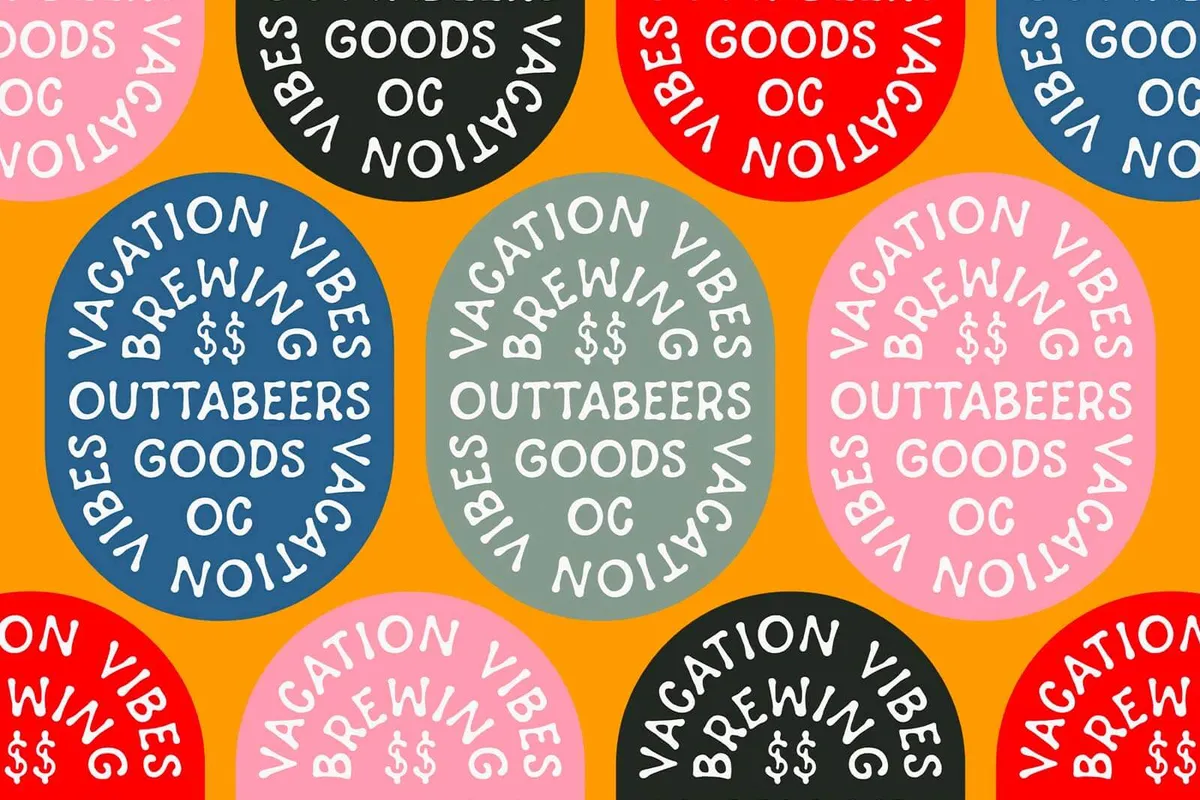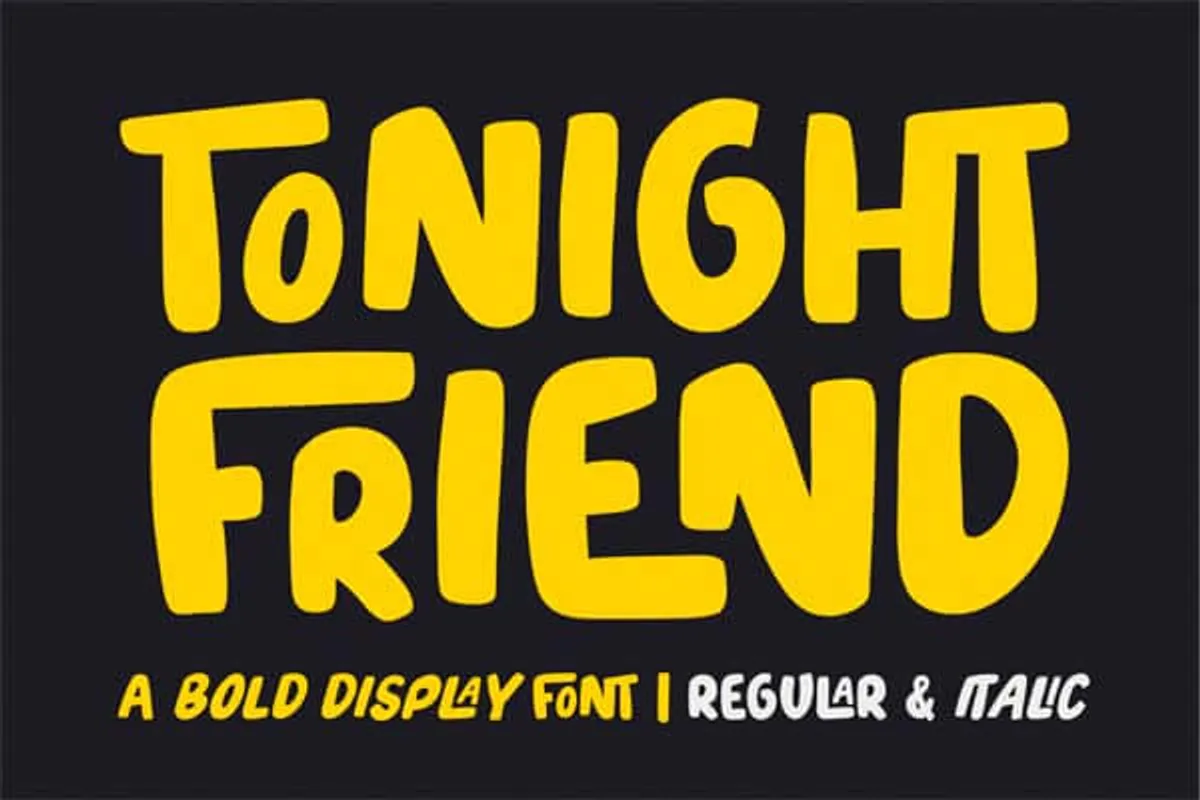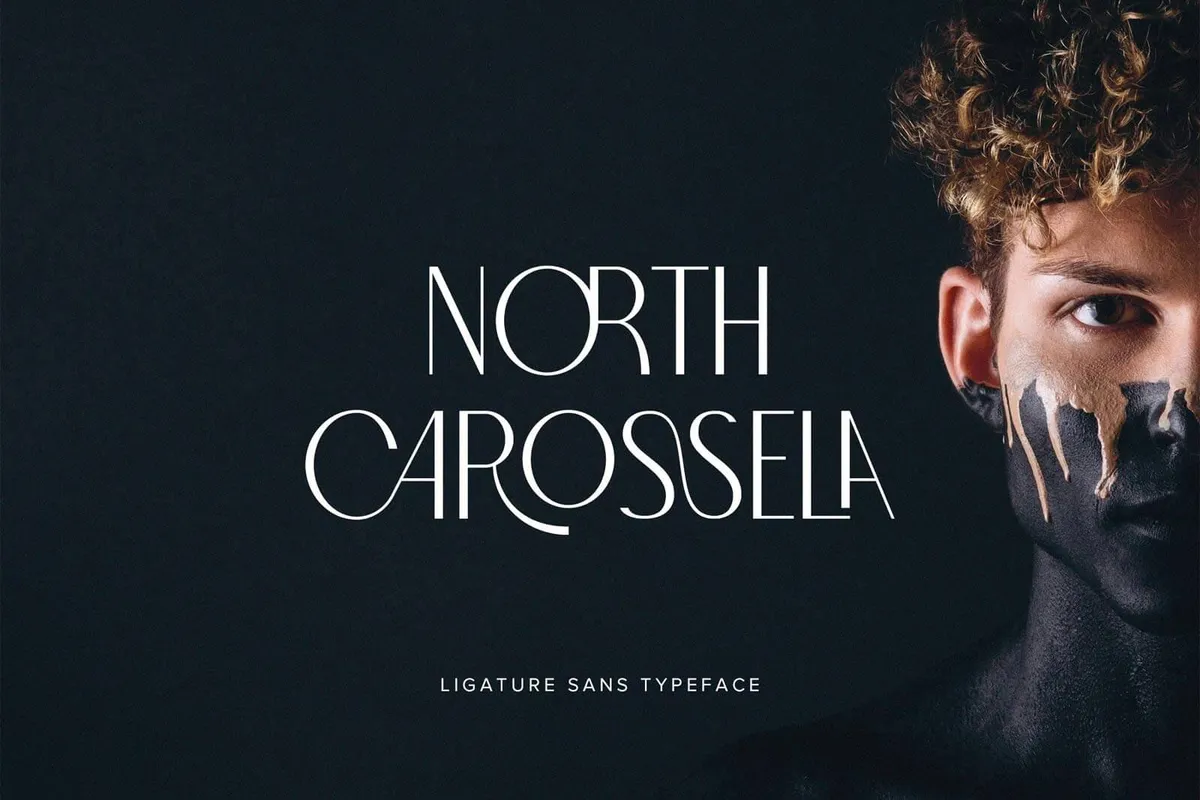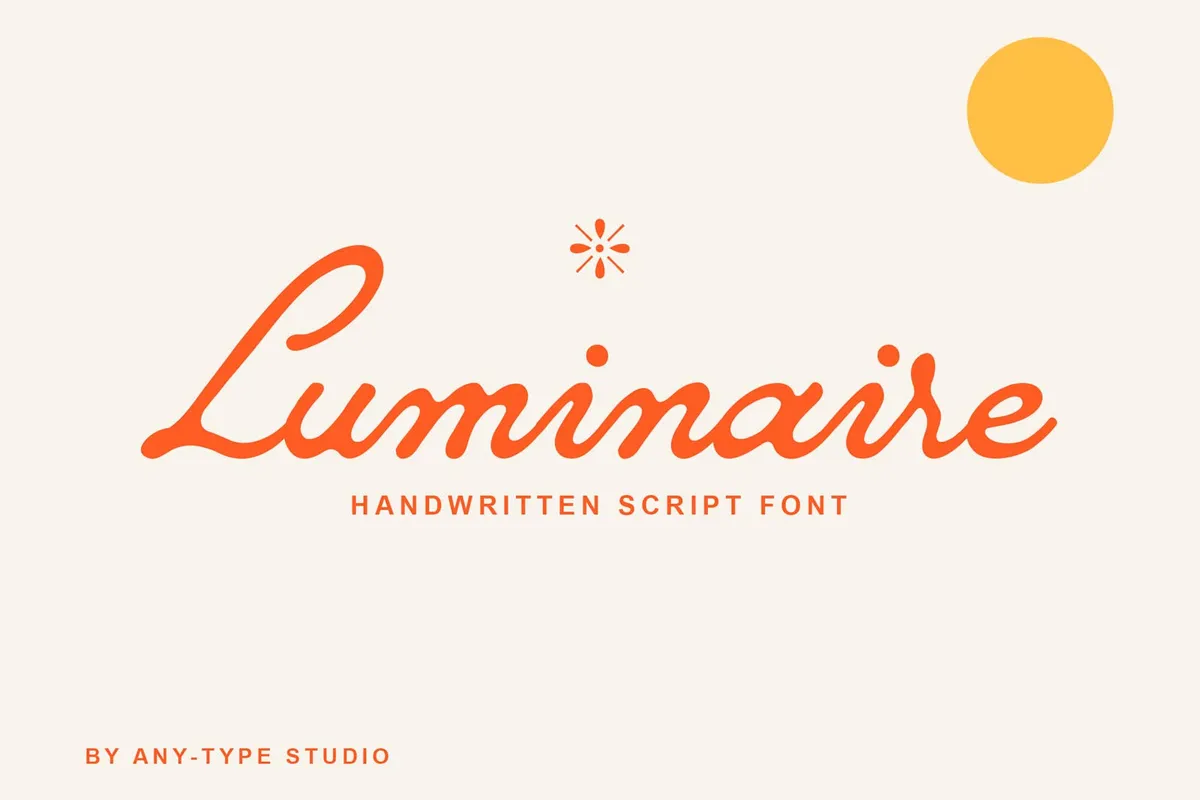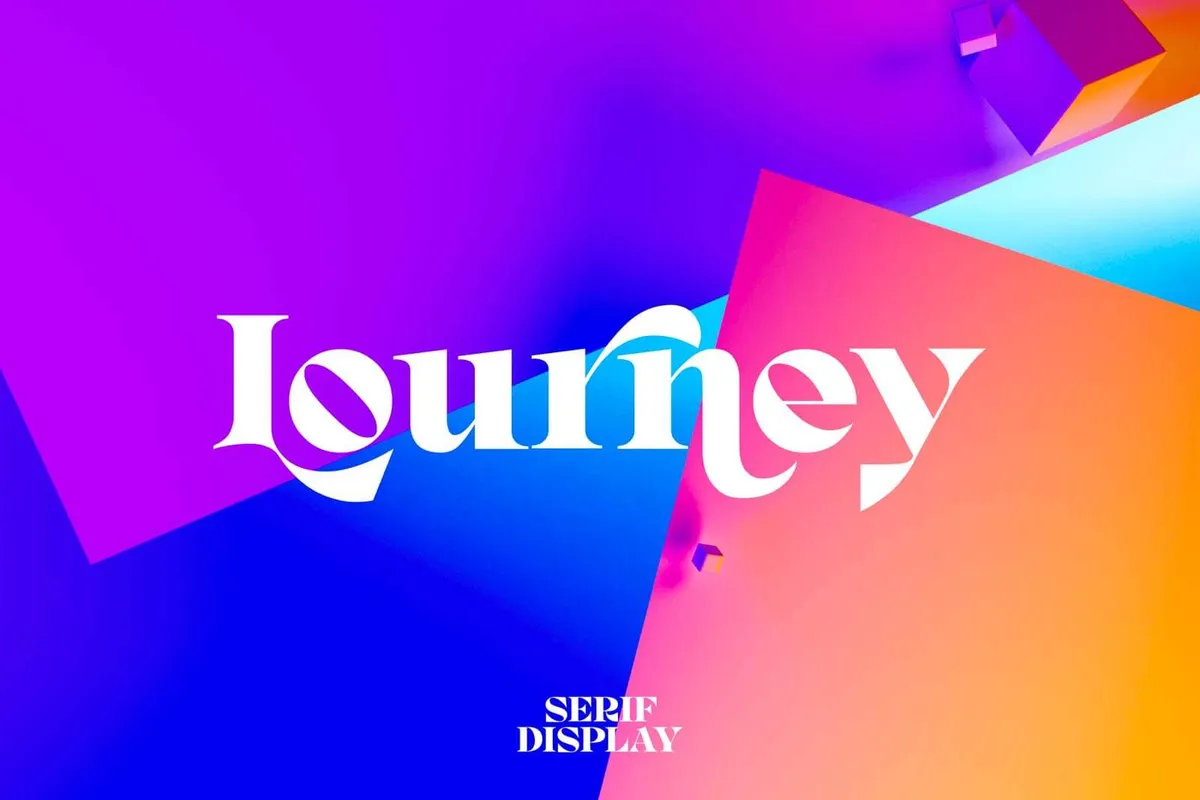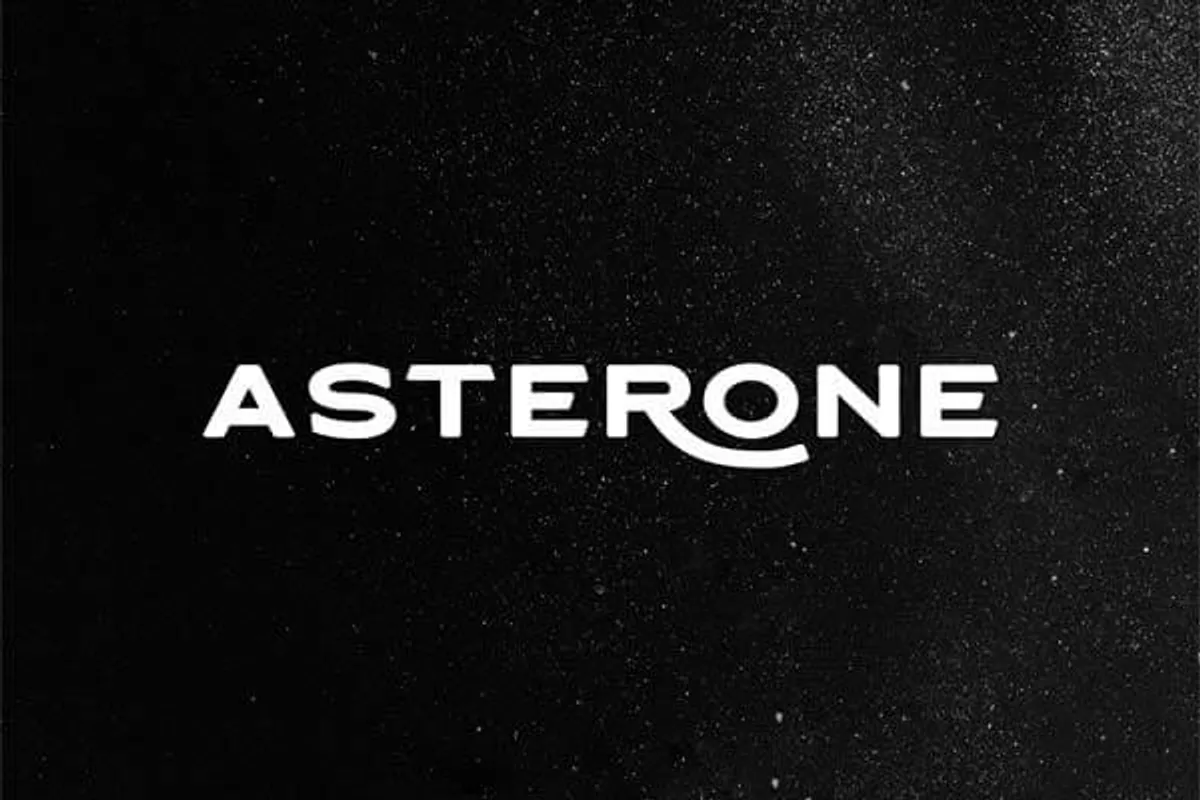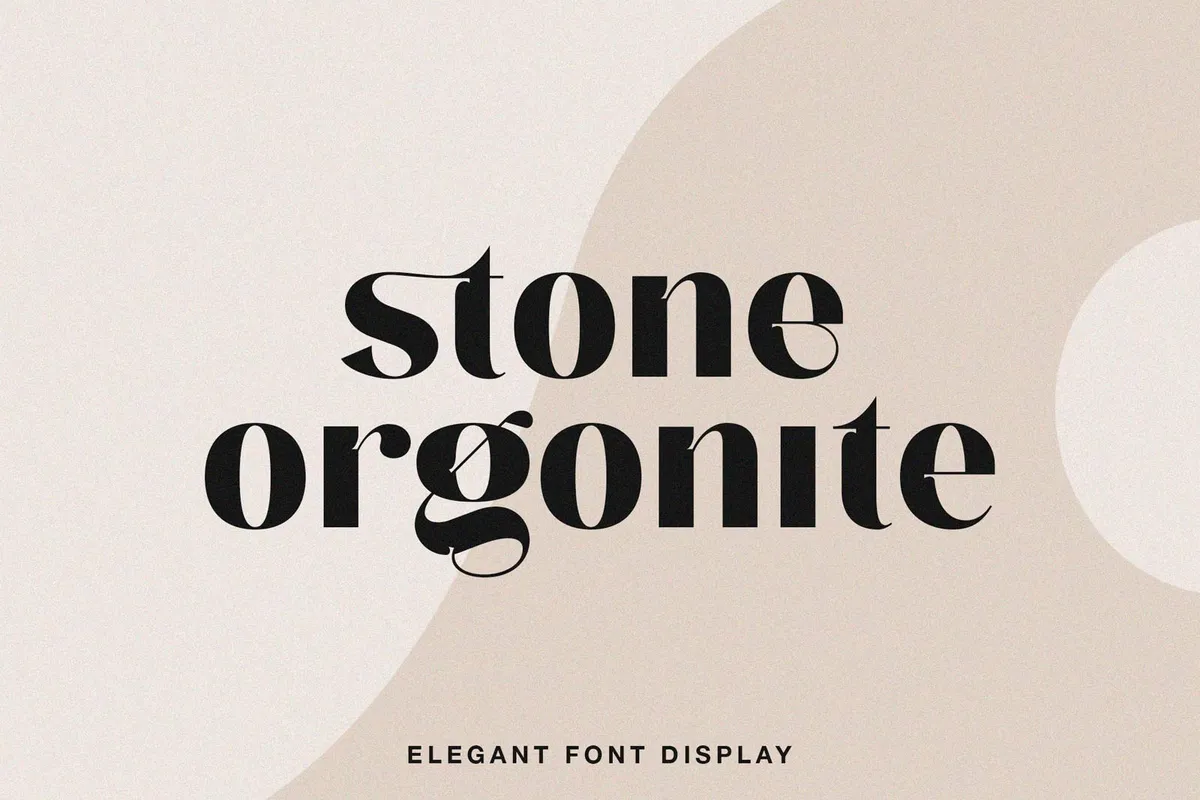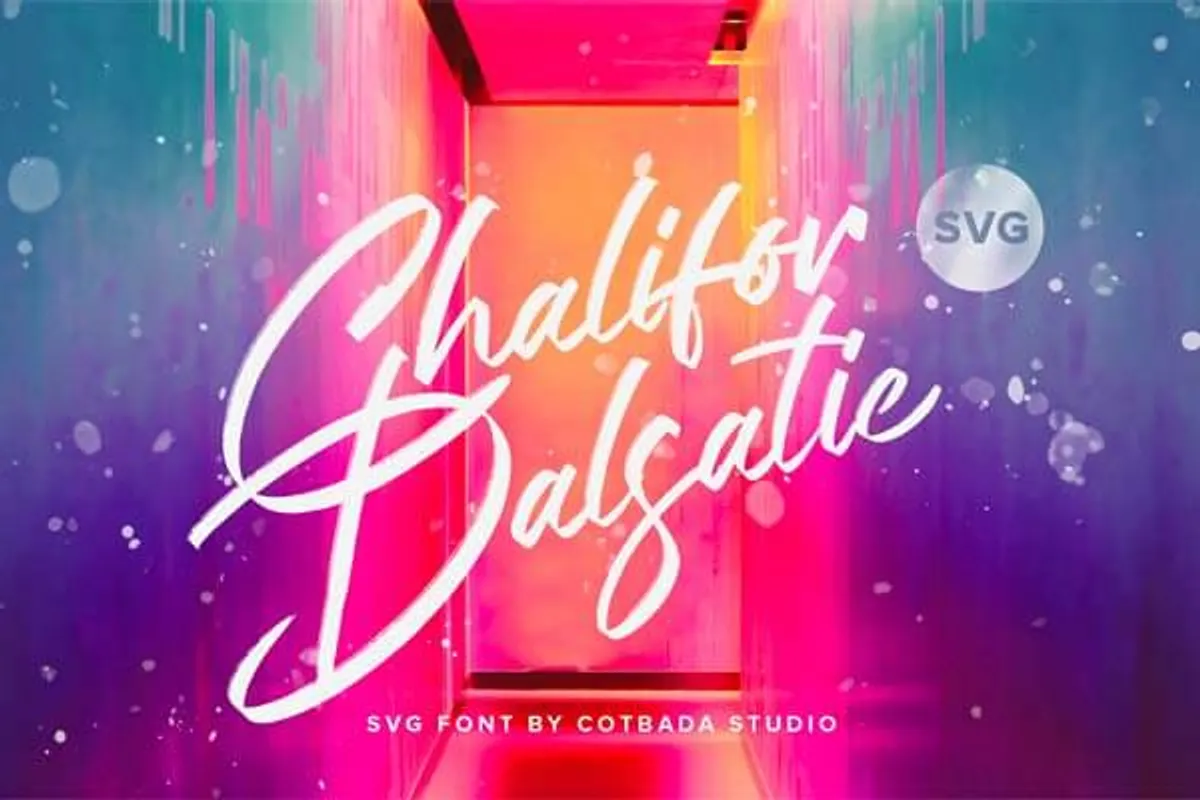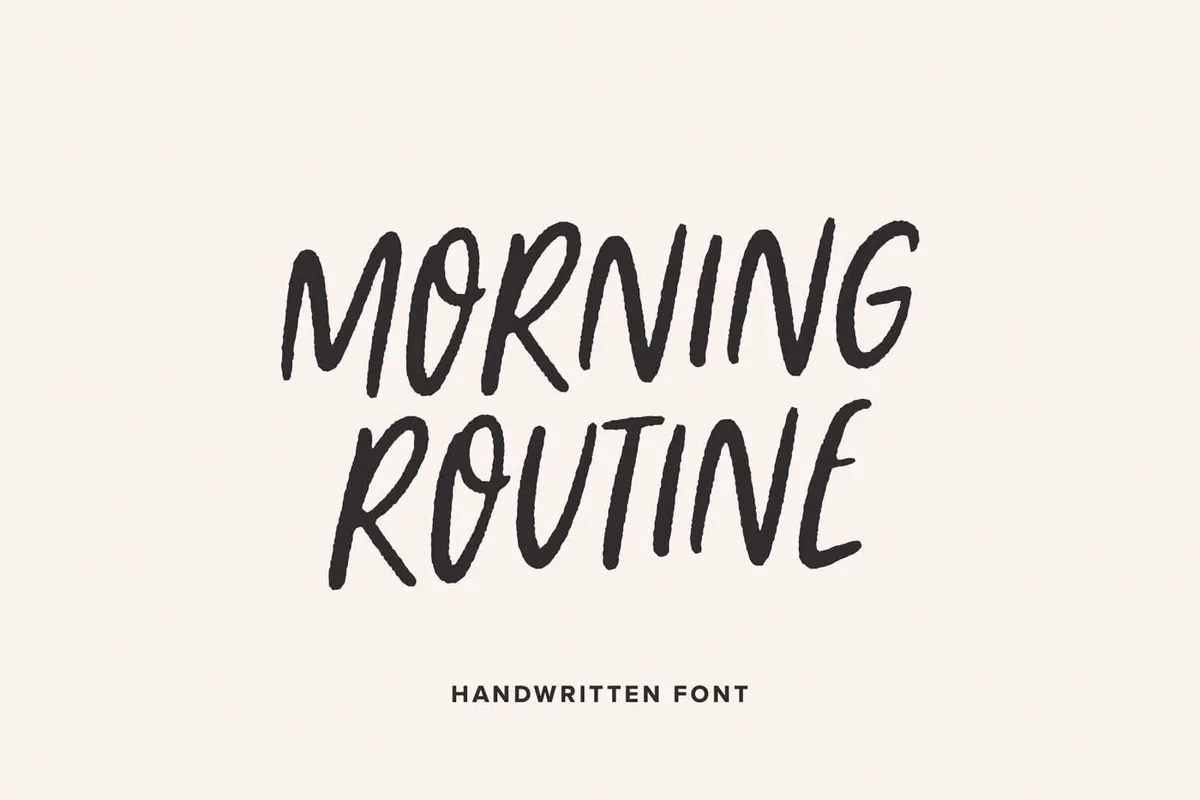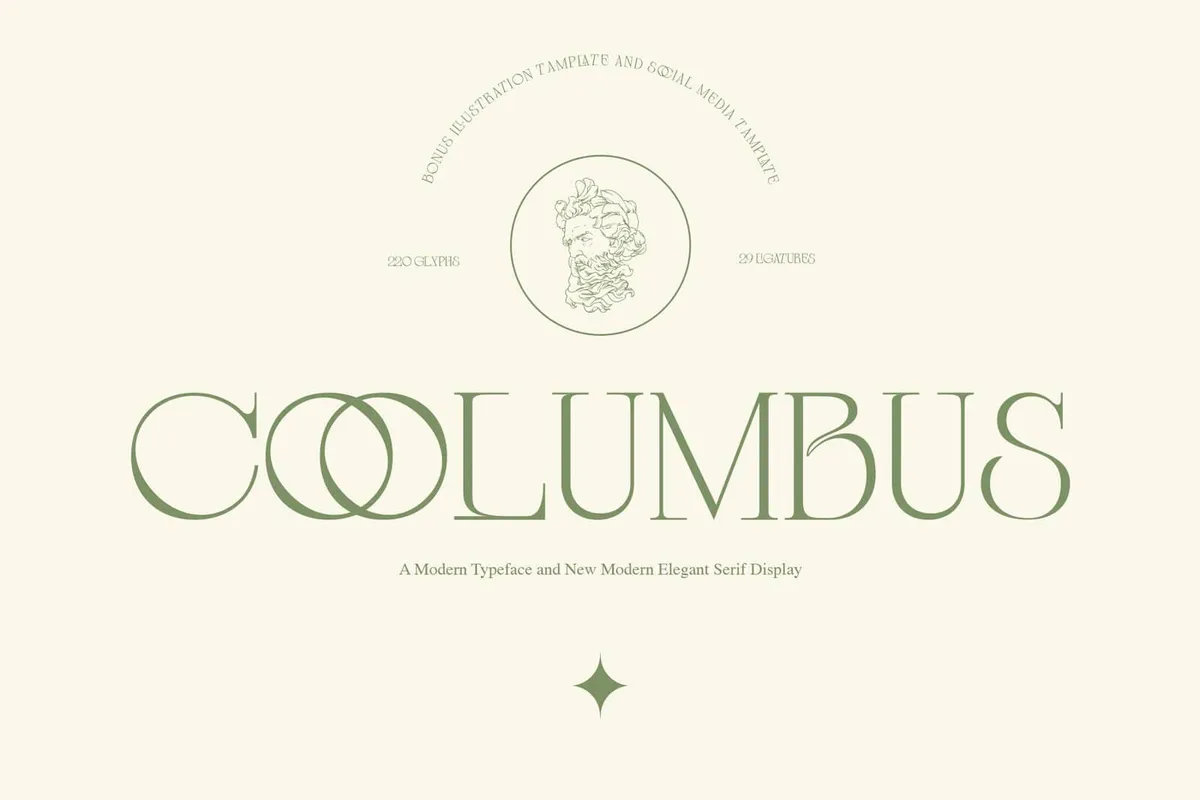
Being a hipster means opting for the trendiest and sharpest stuff. Music and clothing are the most apparent things that come to mind when thinking of hipsters, but in fact, anything can go: political and social views, lifestyle, and even design resources. Knowing that I decided to show what it's like to be trendy as a designer and what hipster fonts might be!
As you might have guessed, items of different styles can be hipster, so once we talk about hipster fonts, there will be a rejoicing and truly fascinating variety of those. From quirky retro serifs to ultra-modern sans serifs and the famous vintage types imbued with woodcutter romantics (the plaid shirt and beard, you know). So prepare for an entire typographic journey and ensure you've enough room to download and install the best hipster fonts from the list.
Morning Routine Handwritten Font
Prepare to extend your collection of free hipster fonts with Morning Routine, an attractive display typeface with a relaxed vibe. It's all-caps and includes the PUA encoded ligatures and multi-language support. The font with be a great fit for stylish poster art and creative projects.
Catavalo Modern Display Font Family
Catavalo isn't a single hipster font but an entire family that includes 6 types in different weights, from light to bold. Elegance is the main feature of Catavalo, and that's what you'll bring to your t-shirts, branding concepts, posters, and prints. In fact, almost any projects will benefit from any bold display face from the package.
Monro Quirky Font
Lourney Display Font + Extras
How about a hipster font that's modern, elegant, and highly legible? Lourney is exactly the kind that brings perfection in every letter. Its powerful visual will work perfectly for a logo design allowing to create almost endless stylistic variations for different purposes.
Hipsterish
Stone Orgonite Display Font
Let's continue exploring hipster font with Stone Orgonite. It celebrates the elegant design with its carefully drawn letters while providing everything designers may need for their work: uppercase and lowercase characters, numbers, and a set of ligatures. Be sure to grab it for your logo design.
Myona Serif & Elfani Script Fonts
Better Hobby Display Font
Since there're never too many free hipster fonts in a designer's collection, I am thrilled to show you this one. Better Hobby is chunky display font bringing vintage, and modern hipster culture features together. This free font will suit many projects, from t-shirt prints to stylish branding.
DK Running Hipster
Luminaire Script Font
If you ask me what hipster font comes to mind first, I will name Luminaire, so incredibly elegant and modern! As a designer, you'll enjoy every character of it. Importantly, Luminaire comes in the Opentype, Truetype, and web font formats, so it should be a great choice for almost any creative endeavor.
Histories: Fairytale Display Font
Forestion Display Font
Another legend's here! Meet one of the greatest free hipster fonts, Forestion that will appeal both to creators and readers, as it's very legible and carefully-made. With a full set of characters, this all-caps sans serif font will fit any design project striving for a distinct personality.
Hipsterism Font
Coolumbus Serif Font
Coolumbus isn't a typical example of hipster design, and you'll hardly call it a hipster font — but haven't you noticed how stylish and trendy it is? Inspired by classic serif fonts and jam-packed with extra characters, it promises to become a jewel in your collection of design assets.
Lettown Hills Display Font
RedSky Signature Font
There are few free hipster fonts in handwritten style, so the RedSky is a rare find. It includes uppercase and lowercase characters, symbols, and ligatures. RedSky has a bold vintage personality, which makes it suitable for many projects: wedding invitations, brand design, stationery design, and more.
Hipster Letter Font
Vacation Vibes Handwritten Font
A casual hipster font from a t-shirt — that's what Vacation Vibes is! But do not treat it as a disadvantage, that's what makes this typeface so versatile. It will perfectly cover any creative work, from web design to logos and prints, while keeping them cool and fun.
Asterone Font Family
North Carossela Sans Serif
Need an example of hipster fonts looking high-fashion? Well, how about North Carossela? This rare font allows you to access the world of luxury typography and instantly convey the same vibe with any artwork you use North Carossela. The font is neither modern nor retro, it's simply beautiful!
Daviton SVG Freestyle Font
Extra Cheese Font Collection
With this free hipster font family, You'll have 5 distinctive style variations to choose from. For example, you can mix them with various colors and patterns to reach the degree of joy your project requires — or to explore the potential of a hipster font!
Hunny Straw Font Collection